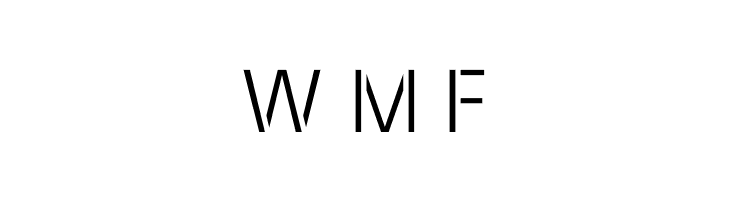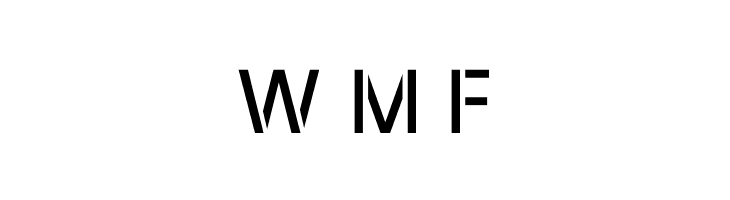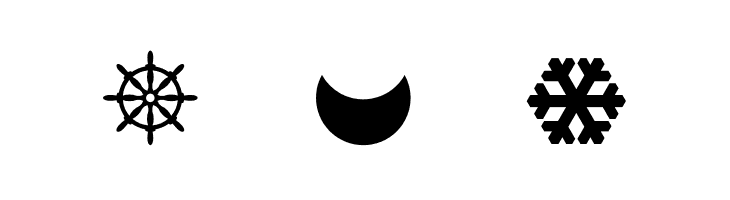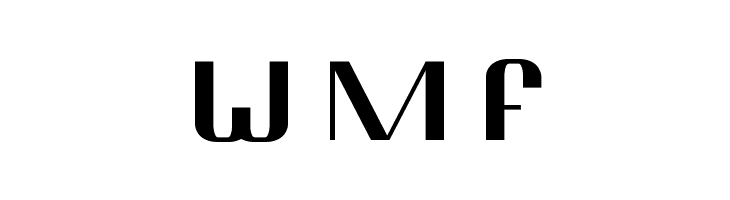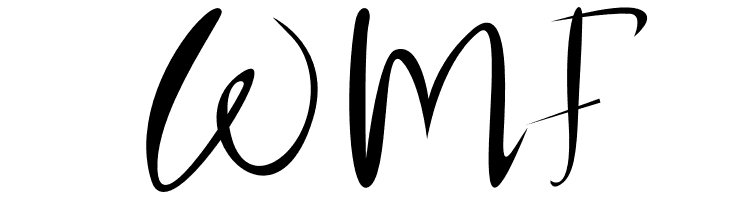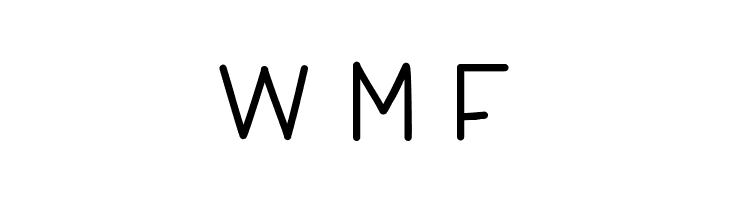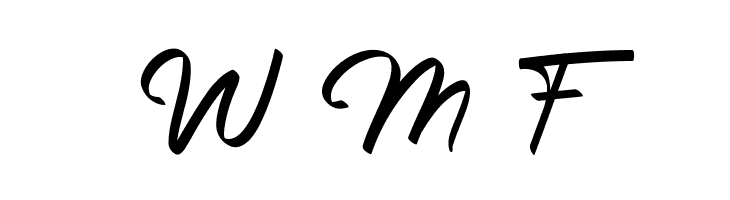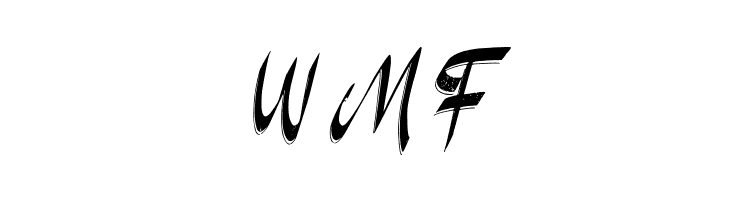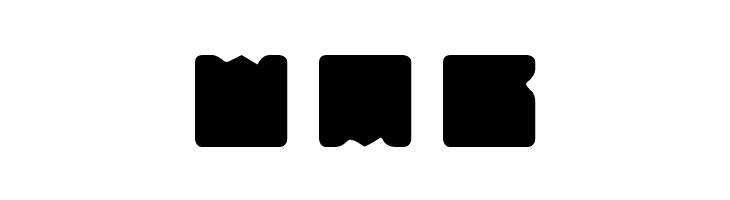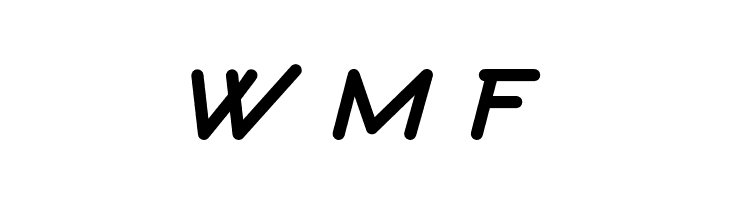
A distressed, hand-drawn font with a grungy, artistic style.
A modern, geometric font with bold uppercase and harmonious lowercase letters.
A modern, geometric font with bold, consistent strokes and a sleek design.
A delicate, flowing script font with elegant, thin strokes and graceful curves.
A playful, handwritten-style font with rounded edges and a friendly appearance.
A versatile set of bold, solid black silhouette icons featuring diverse symbols.
A bold, modern font with rounded edges and geometric structure.
A bold, geometric 3D font with a modern, futuristic style.
A bold, geometric font with rounded edges and a modern feel.
A bold, italic font with a modern and dynamic style.
A modern, geometric outline font with consistent stroke width and clean lines.
A bold, artistic font with expressive strokes and a playful, rebellious style.
A sleek, modern oblique font with smooth, rounded edges and a dynamic appearance.
A lively and expressive script font with flowing, interconnected letters.
A modern, geometric font with clean lines and subtle gaps for a futuristic look.
A modern, geometric font with unique cuts and bold shapes.
A playful, handwritten script font with smooth, fluid strokes.
A modern, geometric font with playful hook-like elements and contrasting strokes.
A bold, energetic script font with expressive, hand-drawn strokes.
A bold, brush-style script font with dynamic and energetic strokes.
A dynamic handwritten font with fluid strokes and a lively, personal touch.
A playful, handwritten-style font with rounded, consistent strokes and a casual feel.
A bold, modern font with geometric and angular elements.
A modern, italicized font with uniform stroke weight and dynamic style.
A sleek, modern italic font with consistent stroke weight and a dynamic appearance.
A bold, modern script font with dynamic slanted letters and strong visual impact.